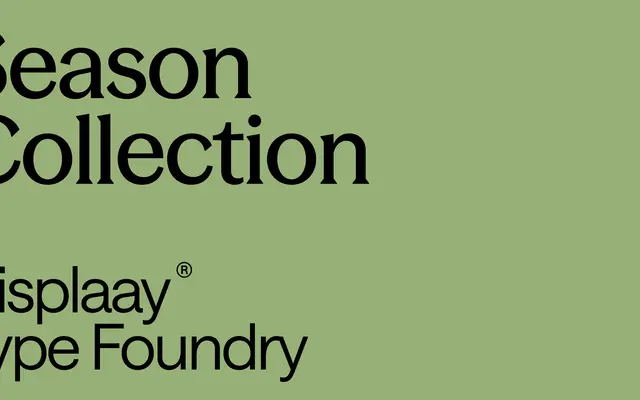
A three-family variable collection from Displaay that spans sans, hybrid and serif styles across a single interpolation space, offering 36 styles in 18 weights.
Season ships as three related families — Sans, Mix and Serif — each in six weights with matching italics, totalling 36 static styles. A variable font ties them together across three axes: Weight, Slant and SERF, the last of which controls the degree of seriffing and allows continuous movement between the sans and serif extremes. The result is a system suited to editorial and brand work where a single type family needs to carry both text and display roles without switching typefaces.
The collection spans three subfamilies — Sans, Mix and Serif — with a variable axis controlling serif presence (SERF), placing the core family in a humanist sans tradition that morphs toward serif territory via interpolation rather than discrete cuts.